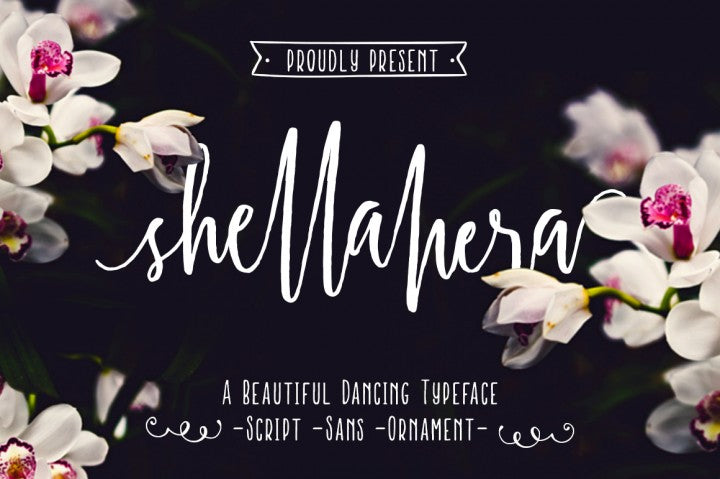
Free Font ShellaHera Demo Typeface
Featuring the inspiring free font shellahera demo typeface. This is a downloadable free font file brought to you by The Hungry JPEG. Easily amaze your audience with this fancy font and make your graphic designs pop up from the crowd.